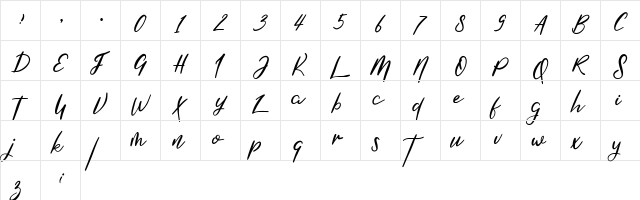
Shirahoshi Regular
Regular · Hyee Gun  ·
Design Context for Shirahoshi Typeface
Shirahoshi is a composed and adaptable typeface that performs quietly and consistently across a wide range of design contexts.